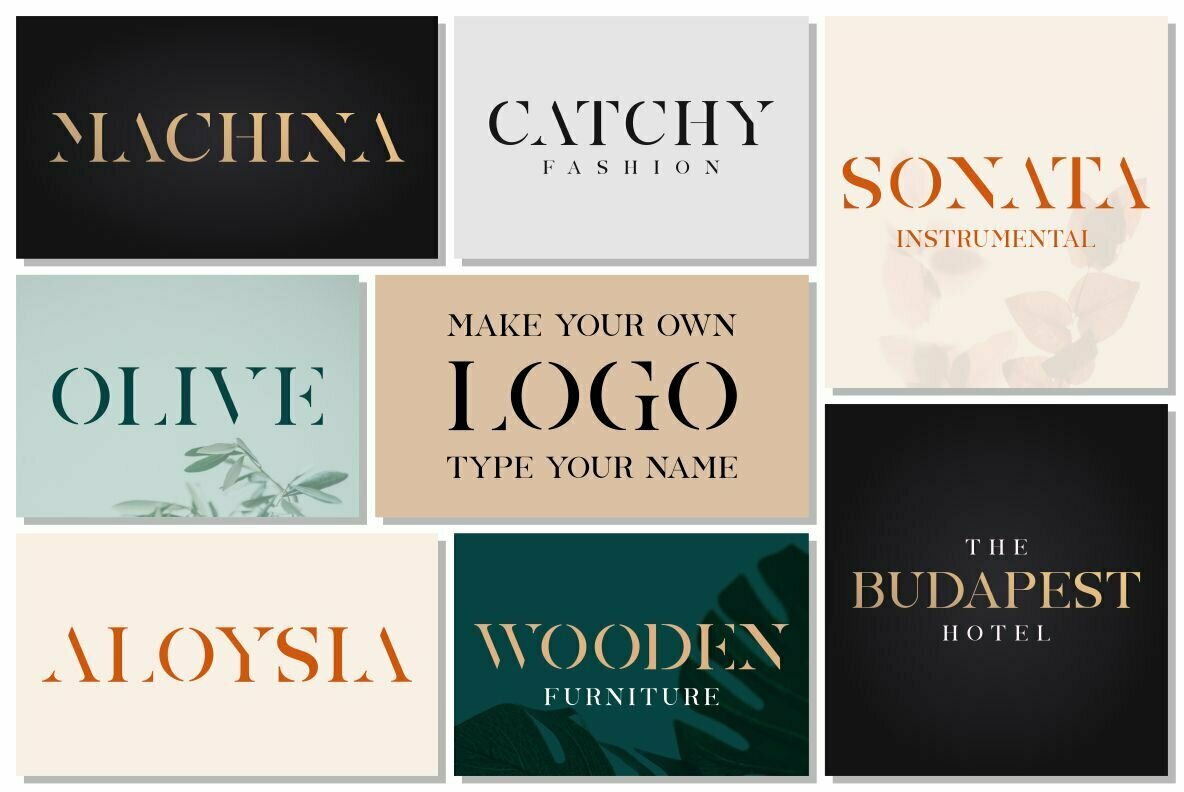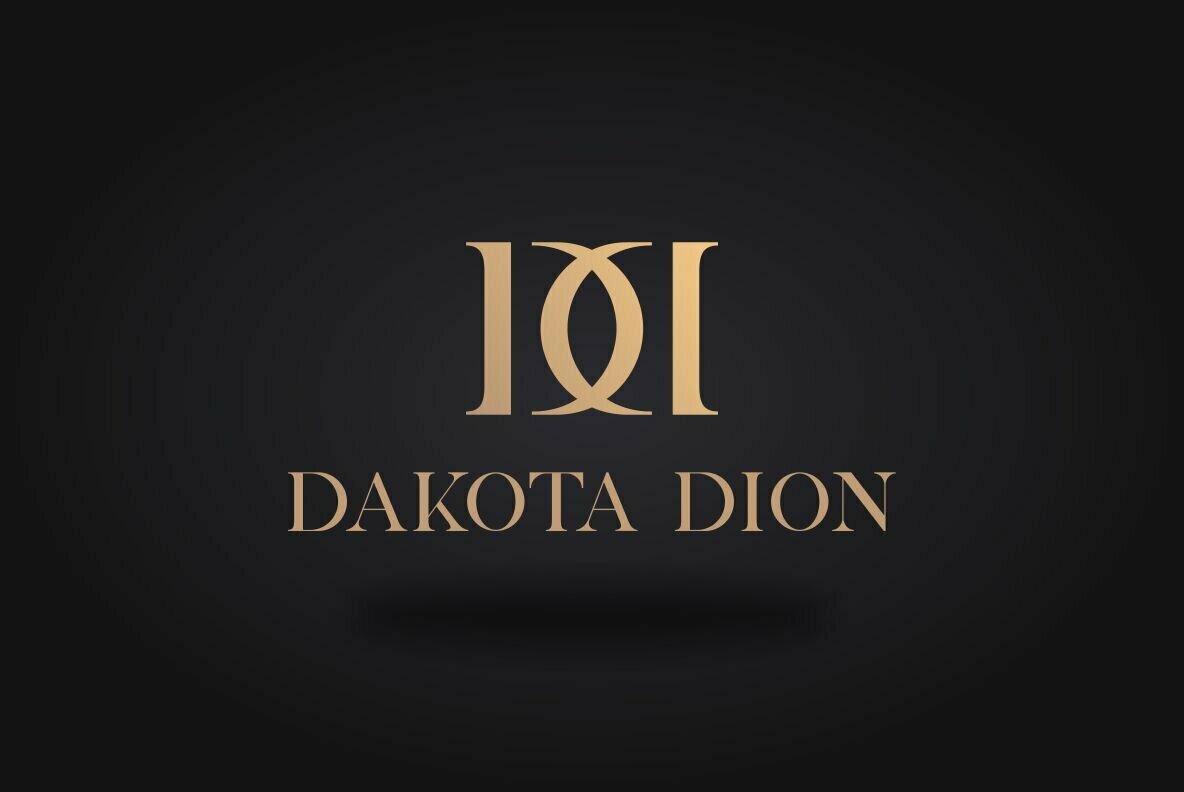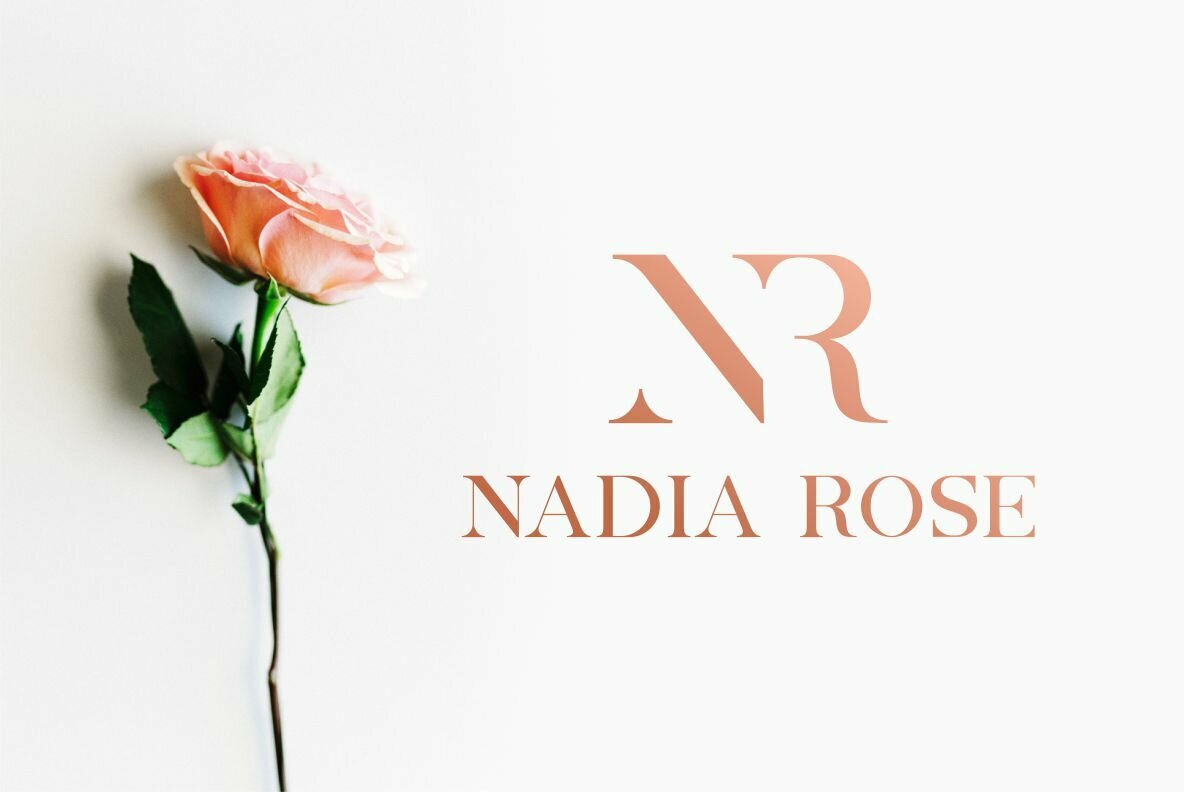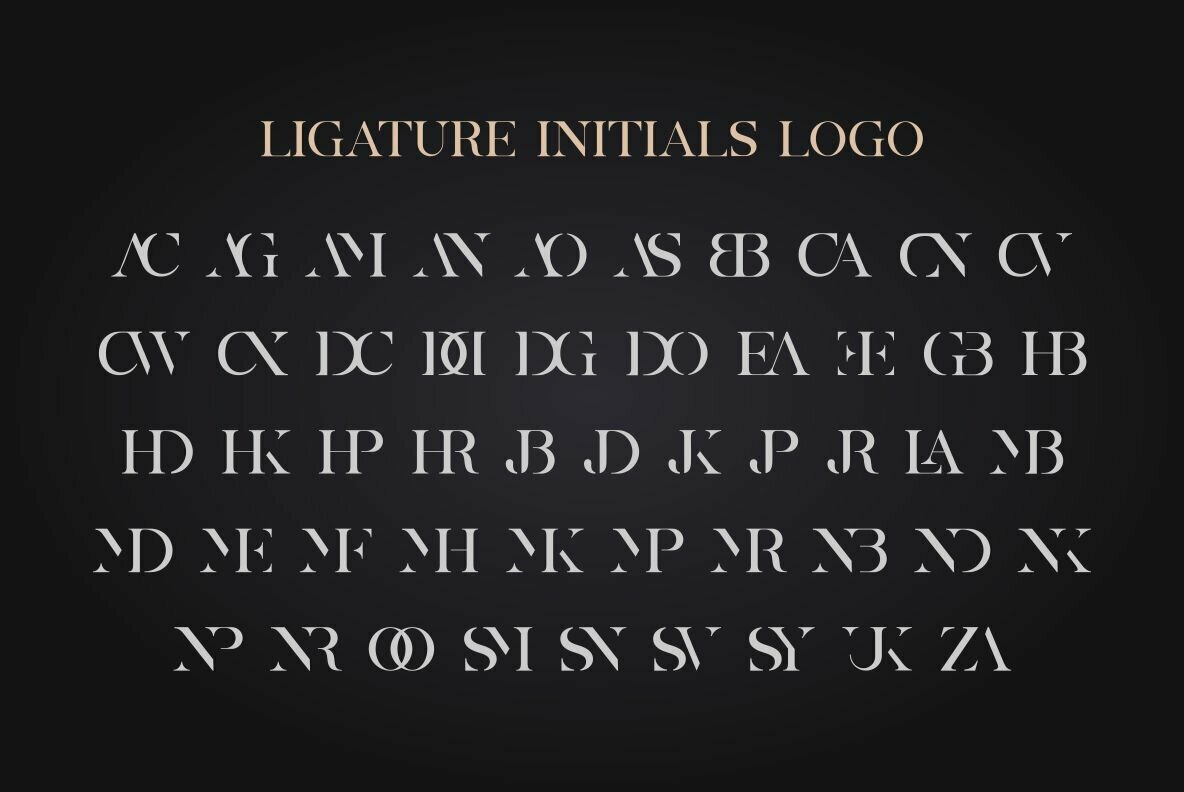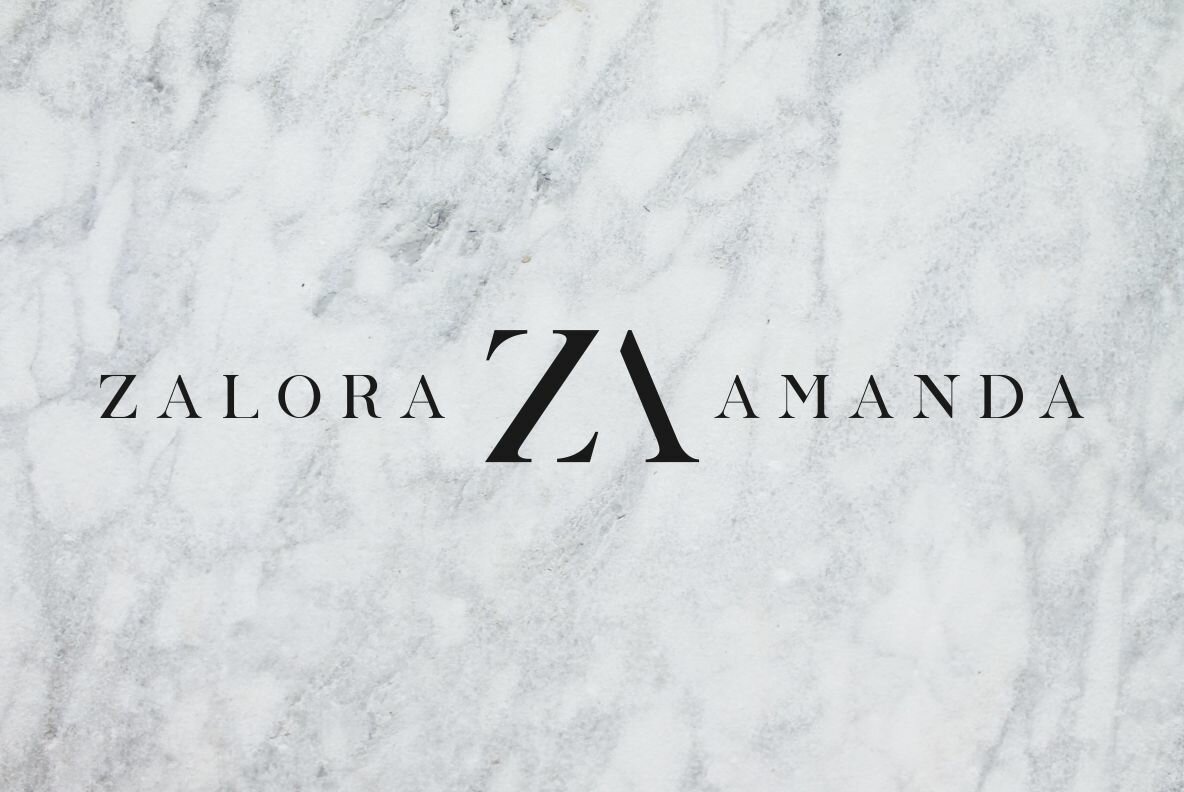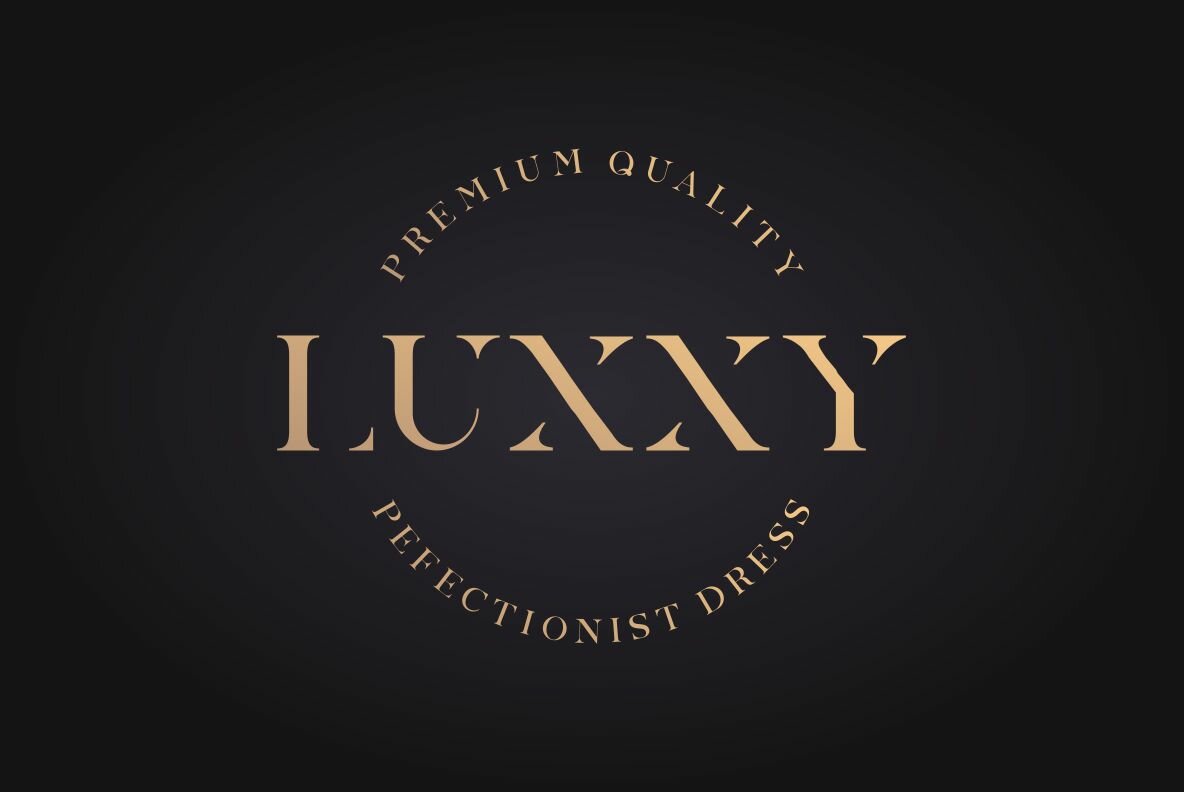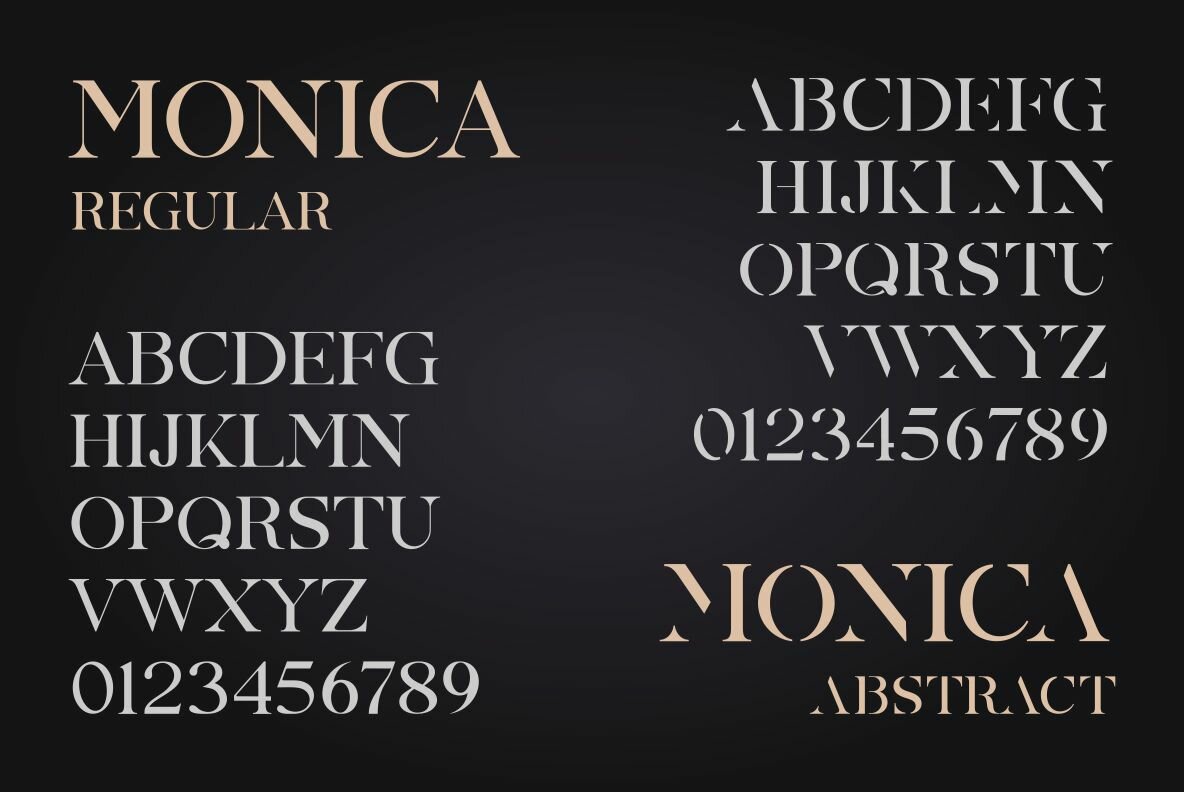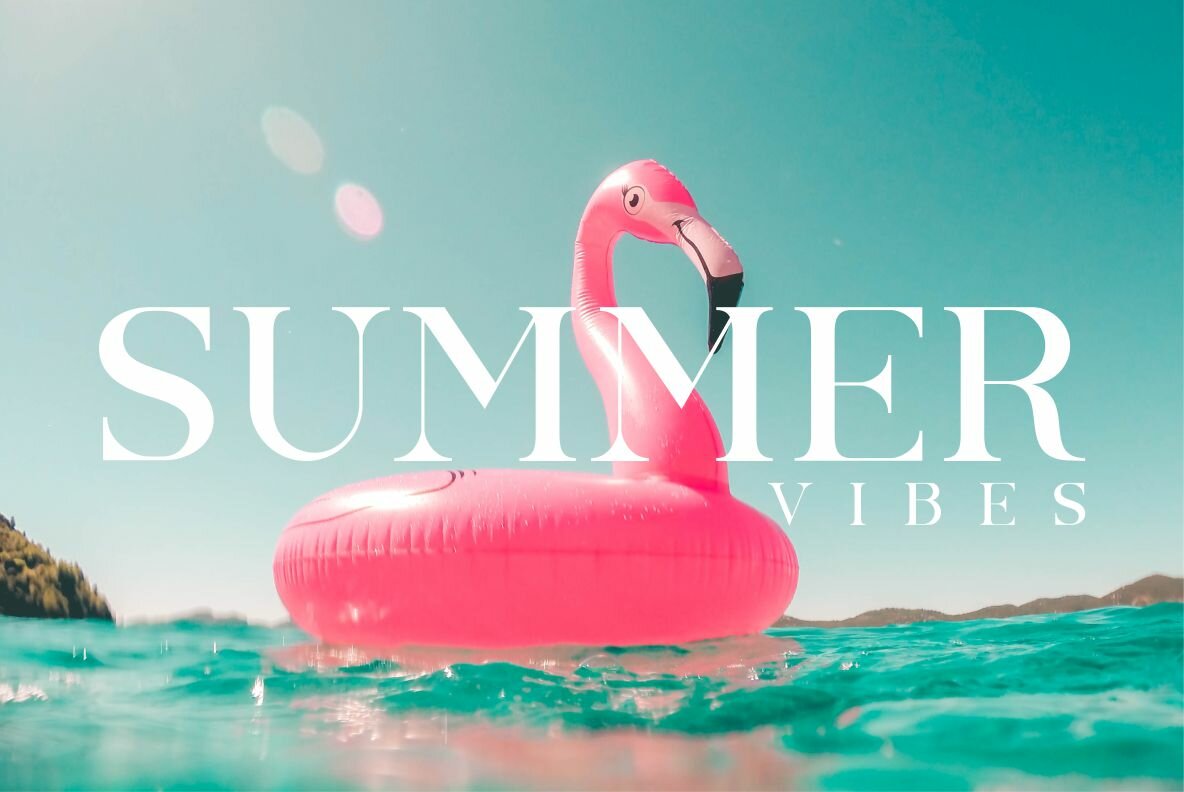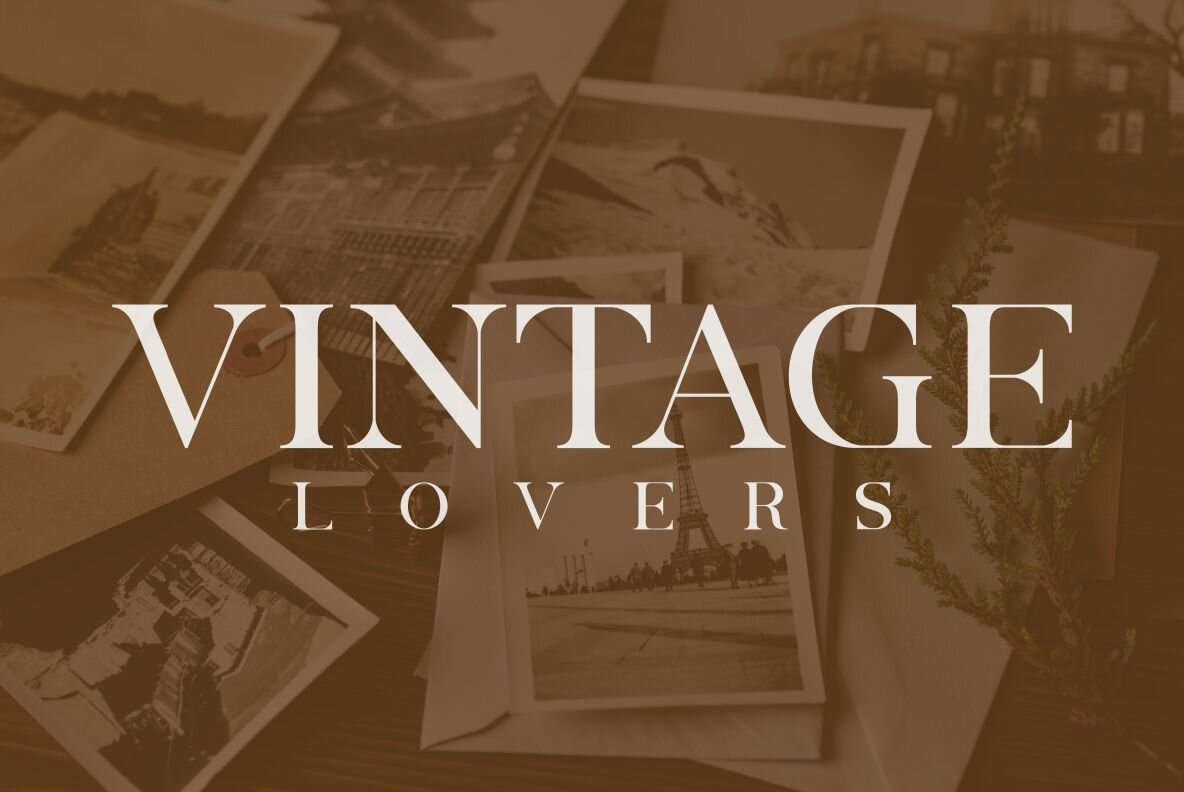
Monica Allcaps Font
Monica Allcaps offers a striking blend of vintage allure and modern chic, embodied in a distinct stencil-themed typeface. This display font comes in two styles: Monica AC Regular and Monica AC Abstract, which are ideally suited for impactful projects including logos, posters, and fashion headlines. The typeface includes uppercase characters, lowercase in an all-capital style, numerals, punctuation, and comprehensive multilingual support.Monica Allcaps: A Luxurious Vintage Display Font
Stylistic Features